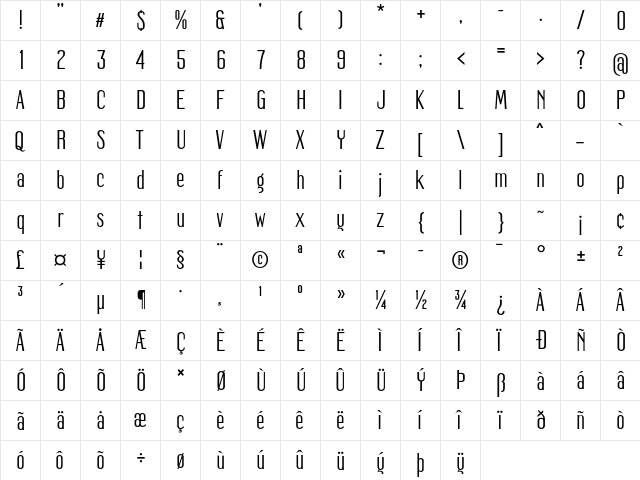
Mager Regular
| Designer | Silvan Kaeser |
Design Context for Mager Typeface
Mager is a composed and adaptable typeface that performs quietly and consistently across a wide range of design contexts.